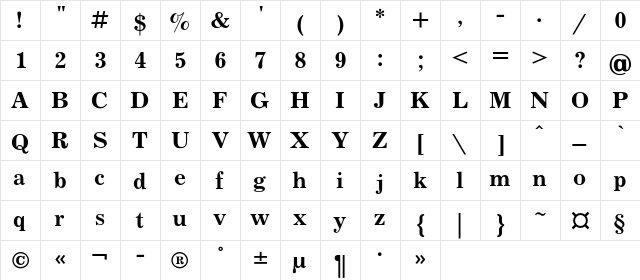
JournalC Bold
Design Context for JournalC Typeface
JournalC is a composed and adaptable typeface that performs quietly and consistently across a wide range of design contexts. Its bold stroke weight gives it real presence on the page.
Pro Tip: Use JournalC in both headline and body roles to test its range before committing to a single application.